10 Best Modern Sans Serif Font
It is a fact that the vast majority of modern designs call for the use of a sans-serif typeface, which can take on various forms. It’s possible that you’re already familiar with the concept, but fonts with no protruding lines at the ends are known as sans-serif fonts. Sans serif fonts add a dash of contemporary flair to a design, in contrast to the more conventional appearance of serif fonts, which are more commonly used. This post will provide you with some of the best modern sans serif font you may use for your most recent project or to get you thinking about your future job.
10 Best Modern Sans Serif Font
What is the best sans-serif font? We have the 10 best modern sans serif font from UICreative that you can use for your projects. What are they? Let’s dive in!
1. Robotika Modern Sans Serif Font
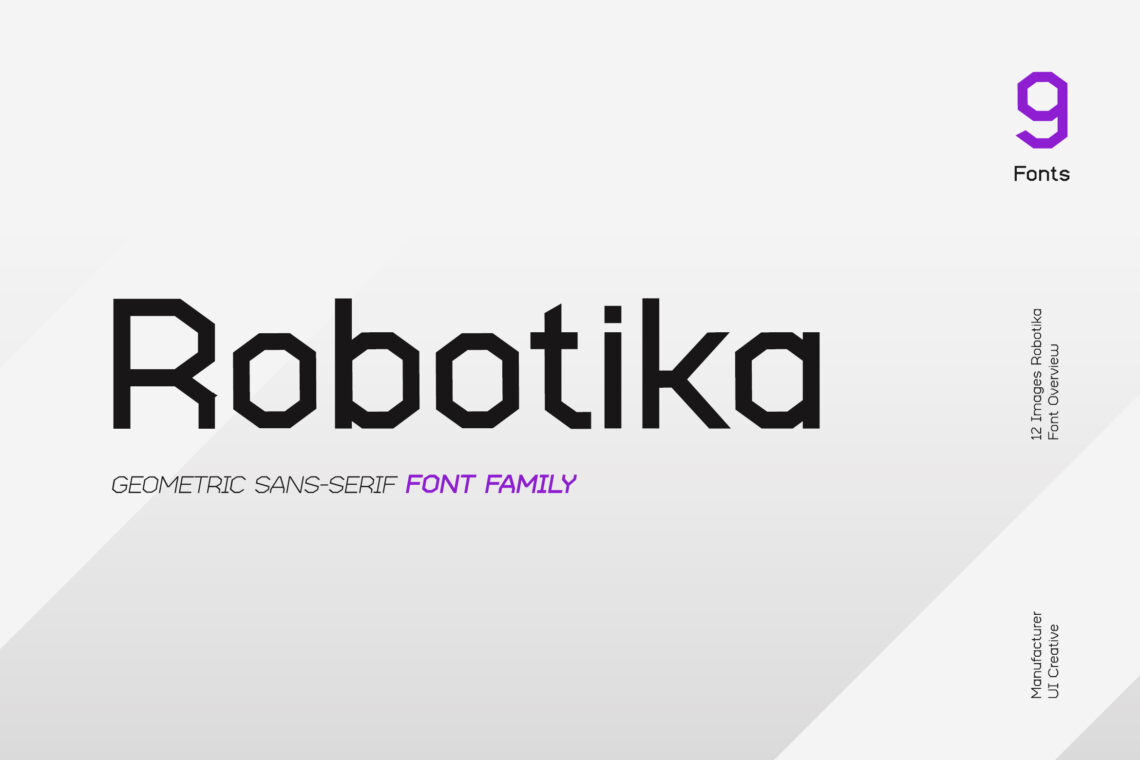
Anyone’s collection would benefit from the addition of this lovely and modern sans-serif font that has a lot of versatility. Use it in the more prominent, attention-grabbing areas of your composition. However, it is also useful when taken in supplement form.
2. Moonlight Handwritten Signature Font
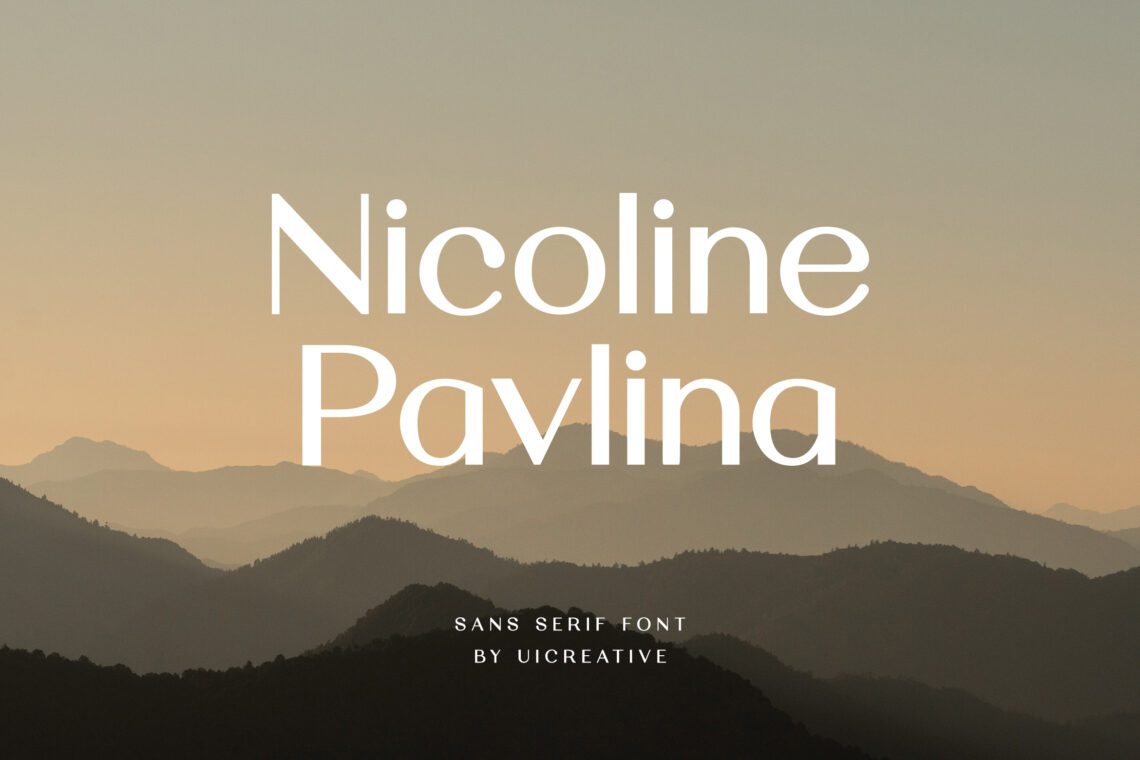
Have a look at this fantastic and trendy sans-serif typeface. It comes with a plethora of attractive ligatures that may be readily utilized in developing headlines and logos that grab the reader’s attention. This is a fantastic option if you’re searching for contemporary fonts that exude elegance.
3. Remixable Retro Sans Serif Font
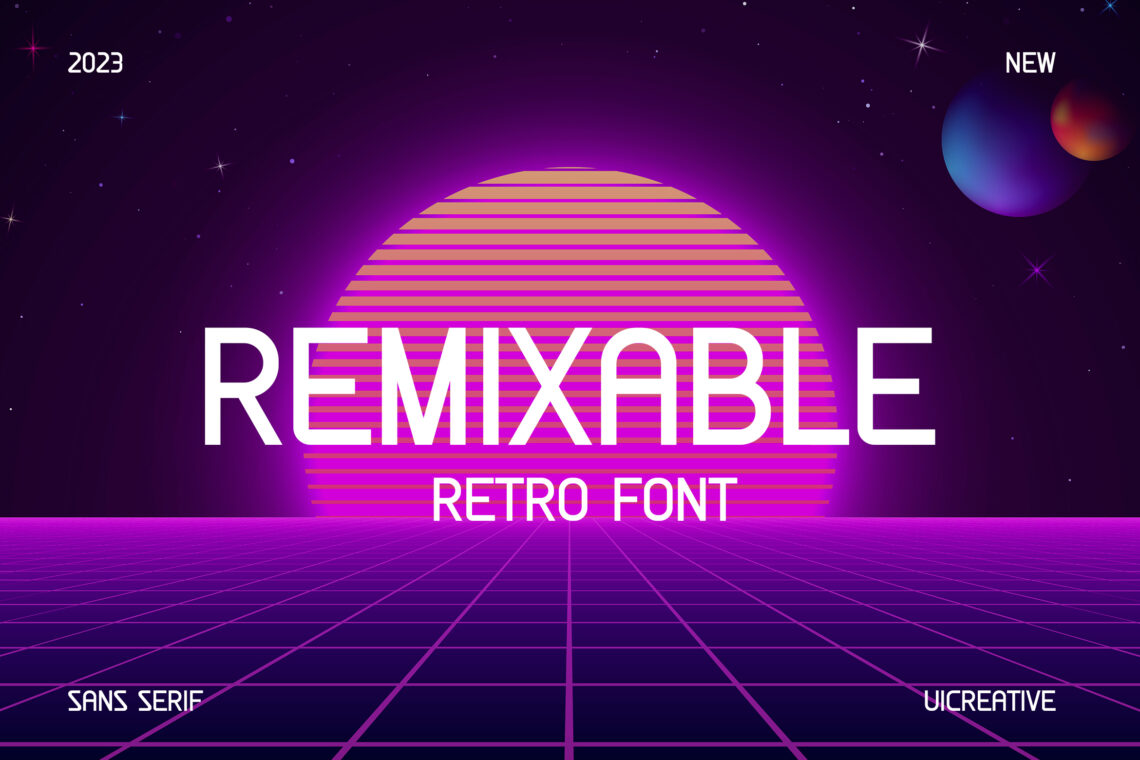
This chic sans serif is a wonderful illustration that the most modern fonts are frequently the most adaptable. This one might work well for you, regardless of whether your design leans more towards eccentricity or a more subdued approach.
4. INZYDECO Sans Serif Display Font
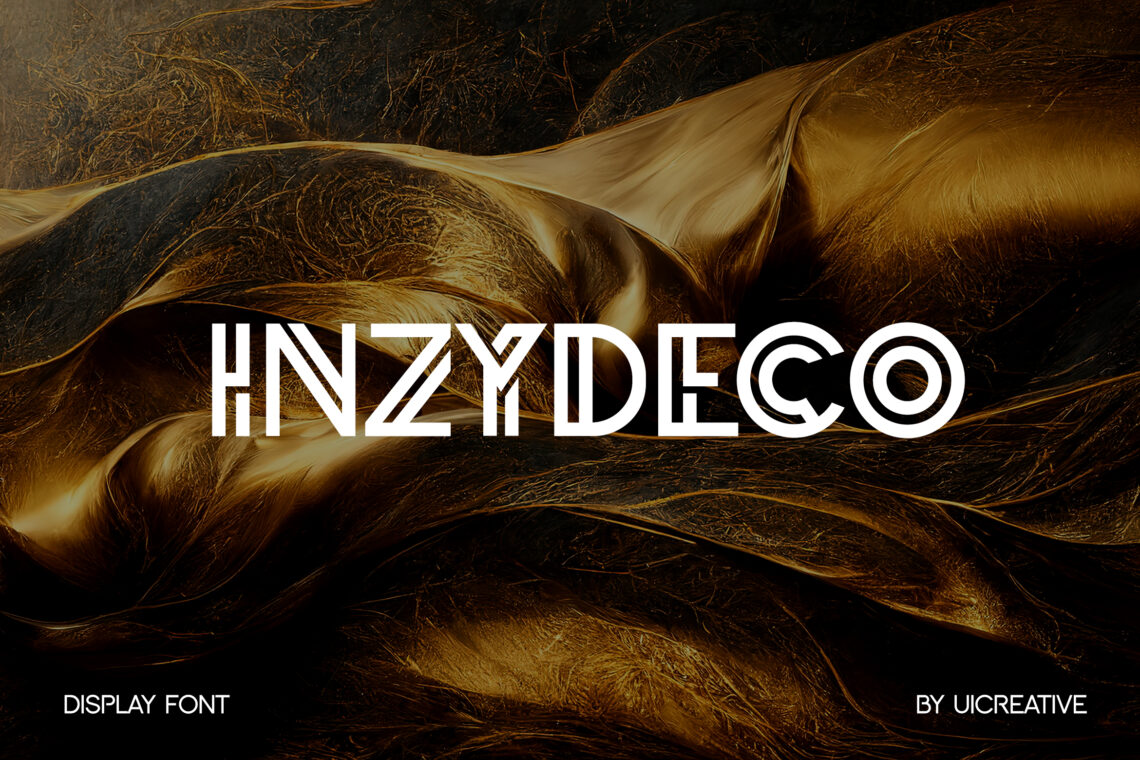
A sophisticated and on-trend appearance can be achieved with the help of thin, modern fonts. This particular font family contains an impressive assortment of neat and contemporary fonts. They are of the calibre that would be an asset to any font collection.
5. Galivanted Logo Stencil Sans Serif Font
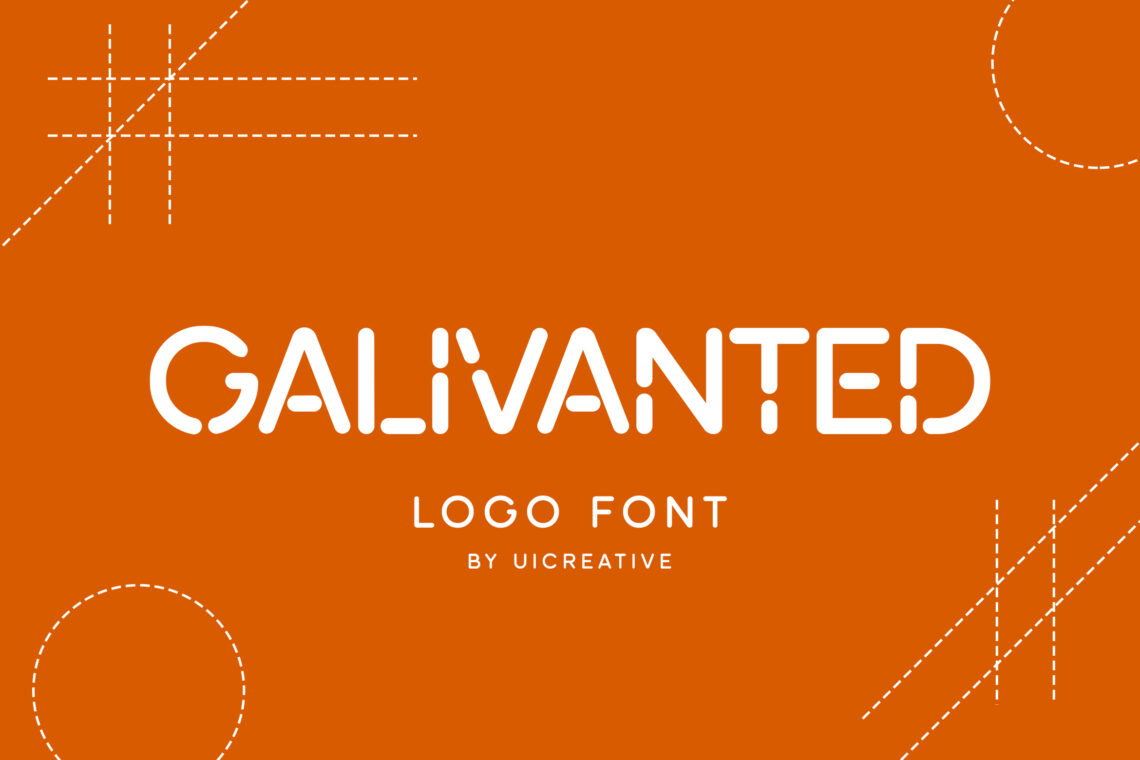
You can give your work a contemporary and lively vibe by using strong fonts. Take a look at this aesthetically pleasing and ornamental font. The type of sans serif most effectively grabs one’s attention is unquestionably this type. Give it a shot today and see how it goes.
6. DREPHONIC Modern Sans Serif Font
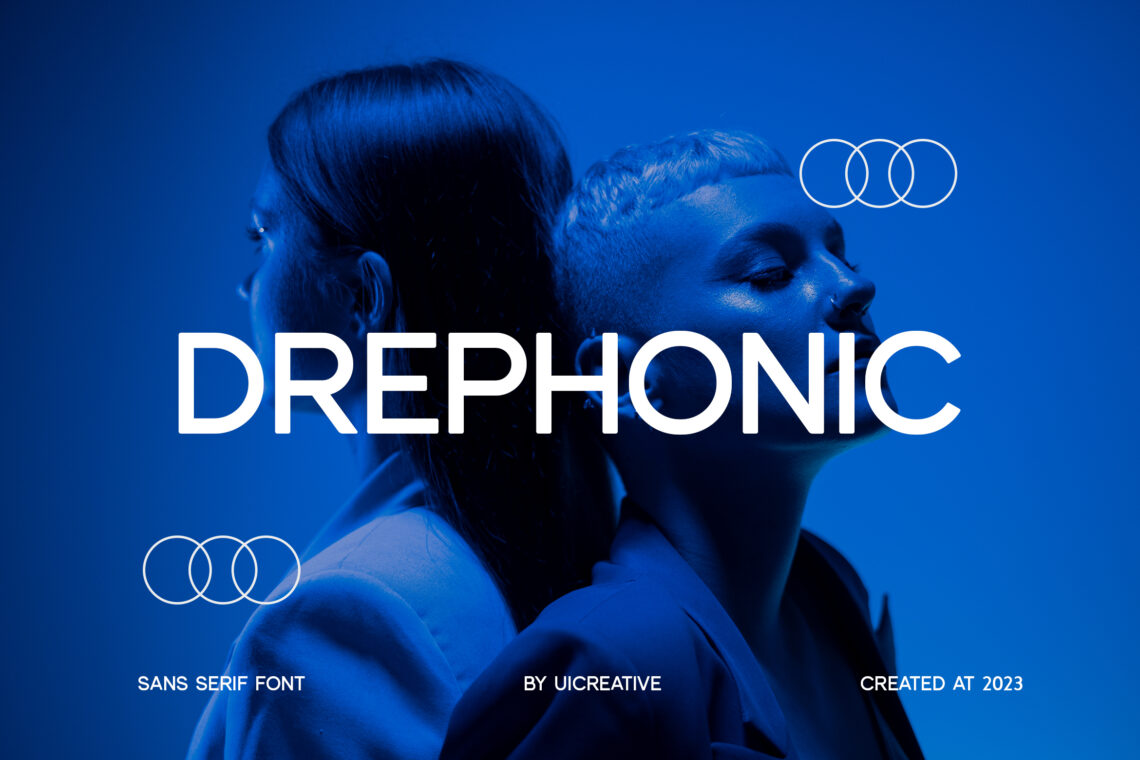
You want a modern font design that captures the thin look, right? Have a look at this awesome sans-serif font family. Move from the regular styles to the ultra-thin ones. This one is an excellent choice for high-end fashion projects and exquisite design.
7. Waylimo Modern Sans Serif Font
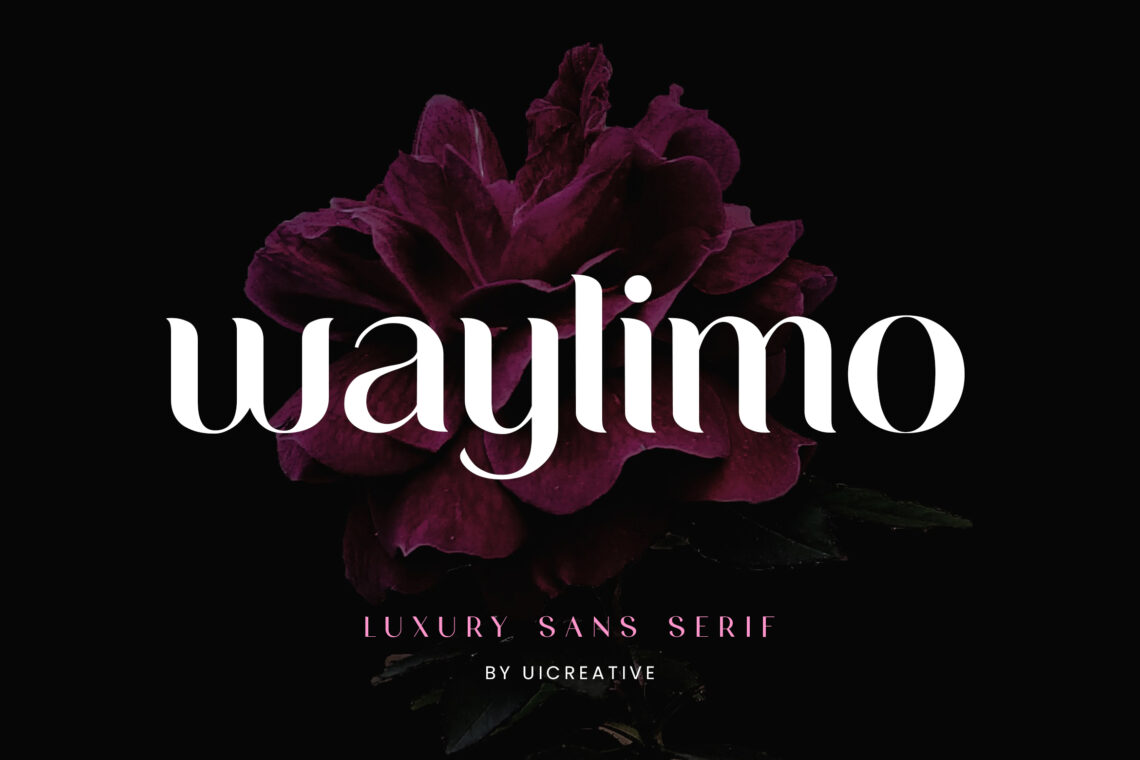
Is this chunky sans-serif font sure appealing, don’t you think? It has a touch of homemade because of its slightly organic feel, but the boldness of a block typeface is still maintained throughout. This is an excellent option if you are also seeking contemporary number fonts.
8. Bosky Evanish Luxury Sans Serif Font
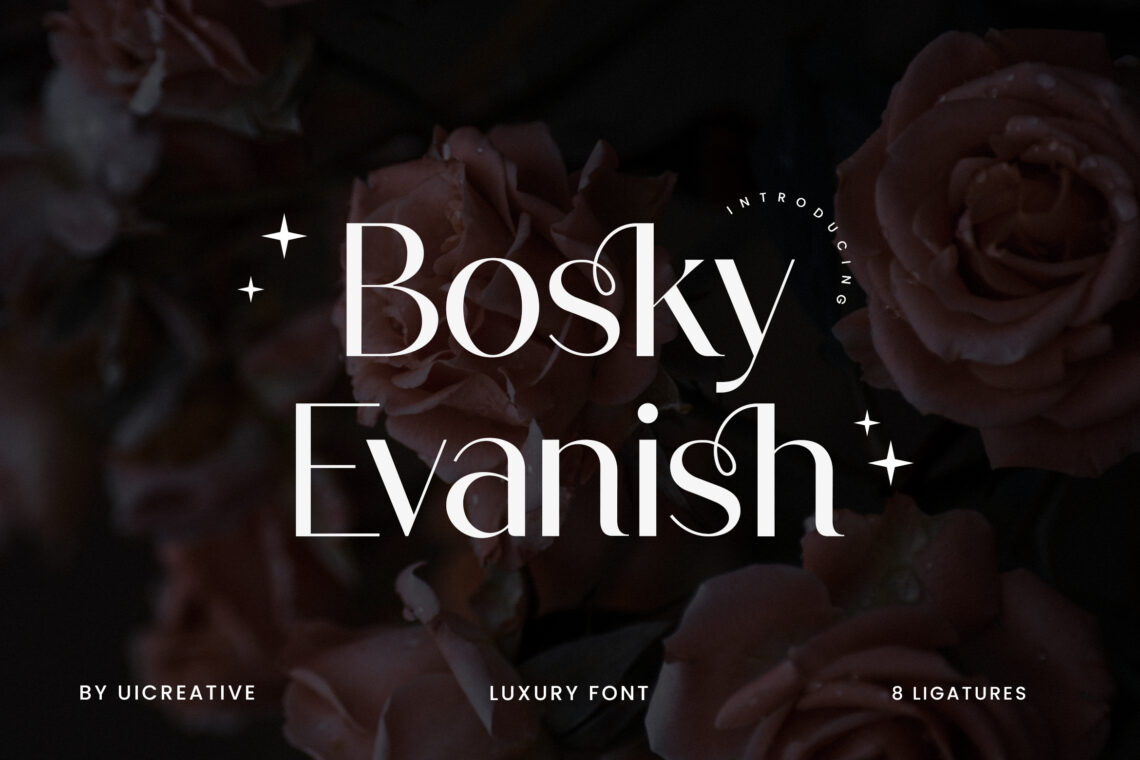
Here is yet another classy example of a thin sans-serif font. Do you not think this one would be a fantastic choice for beauty items or invitations? It works wonderfully for various purposes, including logos, headlines, etc. Give it a shot today and see how it goes.
9. Rough Riders Modern Textured Font
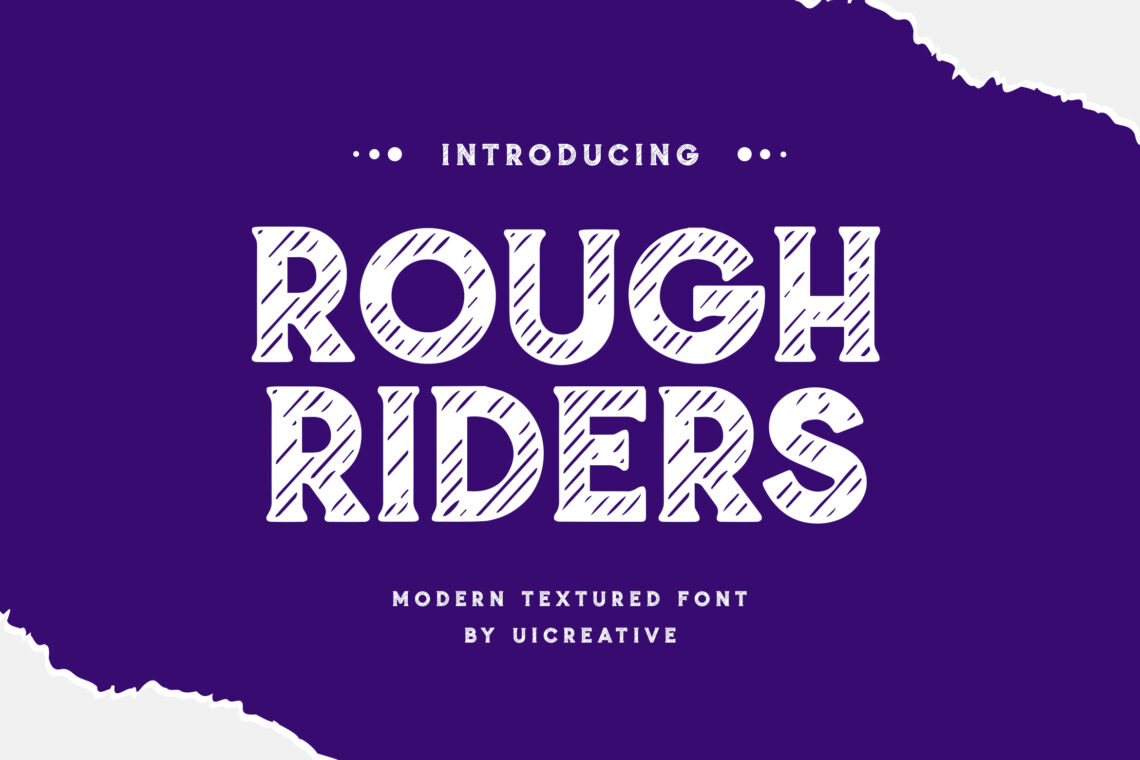
This contemporary, minimalist font is perfect for artistic expression. Examine the regular, bold, italic, and light versions of this font family, which are all included in the package. Use it in the design of your next magazine, high-end packaging, or any other design project.
10. Dustrialize Modern Textured Font
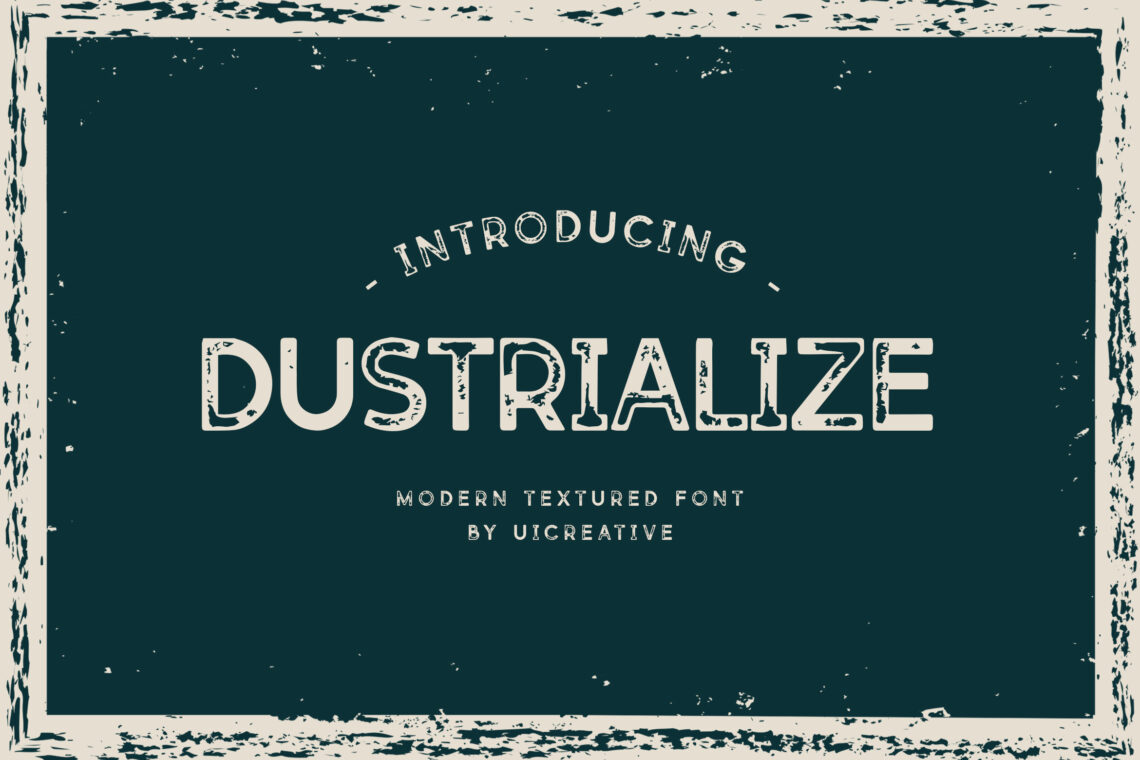
A wide variety of options are available to people nowadays looking for cool modern fonts. Why not go for a more geometric and contemporary look? T-shirts, posters, and other design elements that require emphasis would benefit significantly from implementing this display style.